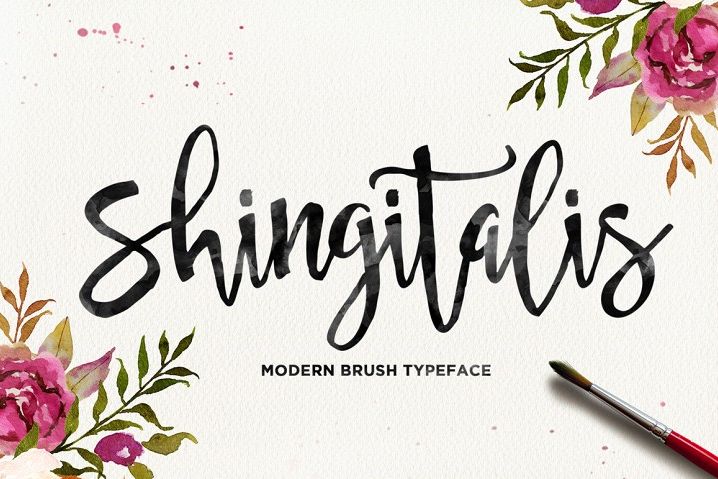
Shingitalis Typeface
Shingitalis Typefaces is a modern calligraphy brush typefaces with a
dancing baseline. looks lovely on Posters, Logos, Print, Quotes,
Headers, Clothing, etc
Shingitalis Typeface